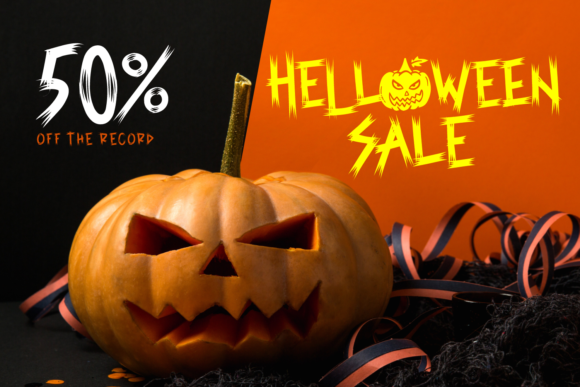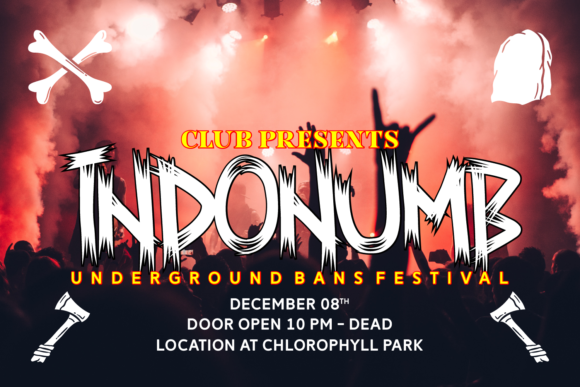
Introduction to Skull Pathway Font
As a designer, you’ve probably experienced that moment when a single font can elevate your entire creative project. It’s like finding the perfect key to unlock a world of possibilities. For me, that moment came when I stumbled upon the Skull Pathway Font. This spine-tingling font is not just a design resource, but a way to add an eerie atmosphere to any project.
Imagine a font that can transport your readers to a haunted mansion on a dark Halloween night. With its transparent background and high-quality design, the Skull Pathway Font is the perfect tool for designers who want to create a spooky ambiance without sacrificing style. And the best part? It’s available for free download, making it an invaluable resource for any creative project.
Whether you’re working on a Halloween-themed campaign or just want to add a touch of darkness to your design, the Skull Pathway Font is a must-have. In this article, we’ll delve into the world of this fascinating font and explore its features, uses, and benefits for designers.
Key Features of Skull Pathway Font
- Unique, hand-drawn design with a mix of bold and delicate elements, perfect for adding a touch of creativity to any project.
- Transparent background option, making it easy to place the font over any image or background without worrying about unwanted edges or distractions.
- Perfect for use in a variety of creative projects, including graphic design, digital art, and typography-based designs, where a bold and eye-catching font is needed.
- Designed as a design resource for artists, designers, and creatives, Skull Pathway Font is a versatile and dynamic tool for adding unique visual interest to any project.
Honest Review: Skull Pathway Font
As a designer, I’m always on the lookout for unique and high-quality design resources to elevate my creative projects. The Skull Pathway Font caught my attention, and I decided to give it a try. Here’s my honest review.
- ✨ The font has a clear, transparent background, making it easy to overlay on images or use as a standalone design element.
- ✨ The high-quality design ensures that the font looks crisp and clean, even at larger sizes.
- ⚠️ The font is limited to a single style, which may not be suitable for projects that require multiple font weights or styles.
- ⚠️ The font may not be suitable for corporate or formal projects, as it has a more edgy and playful vibe.
Overall, I’m impressed with the Skull Pathway Font. While it has some limitations, it’s a great resource for designers looking for a unique and high-quality design element for their creative projects. I’d definitely recommend it for personal or artistic projects where a bold, edgy font is needed.
How to Use Skull Pathway Font
The Skull Pathway Font is ideal for projects that require a bold and edgy look. Common use cases include:
- Designing posters and flyers for music festivals or concerts
- Creating logos for metal or punk bands
- Developing a brand identity for a tattoo parlor or piercing studio